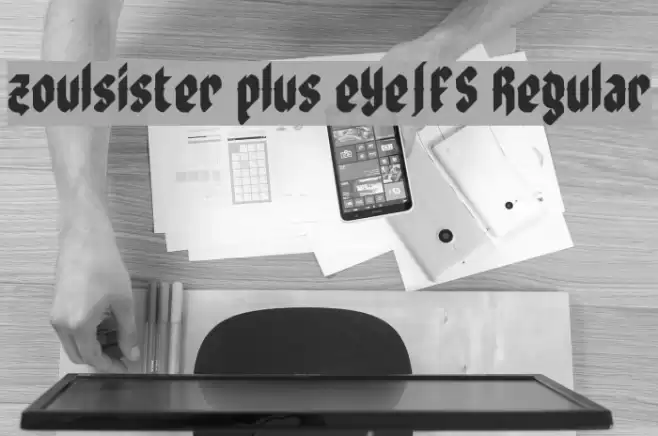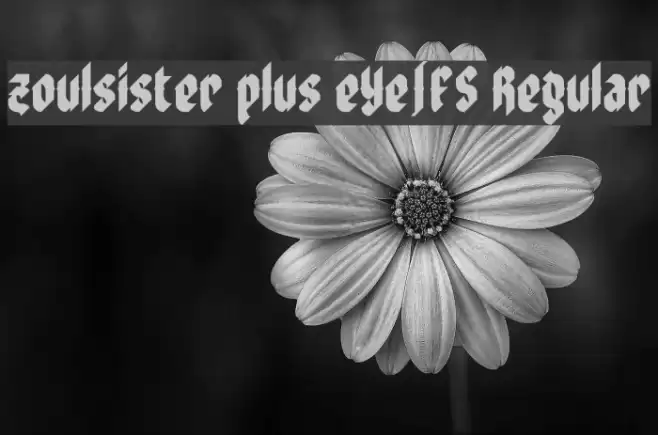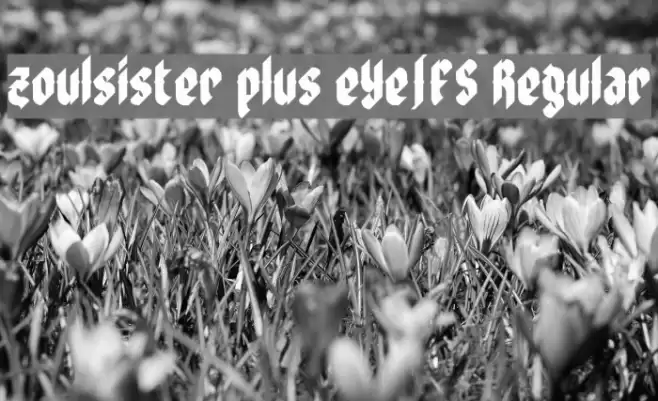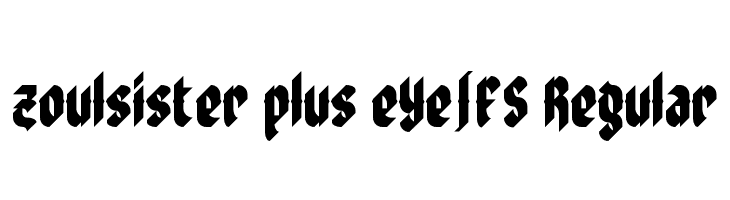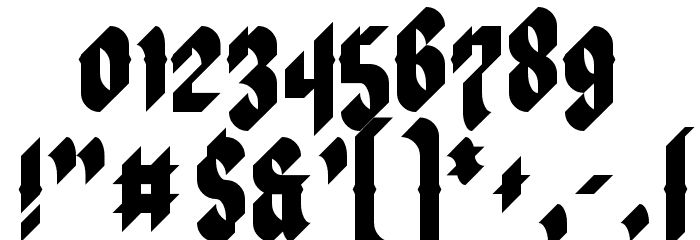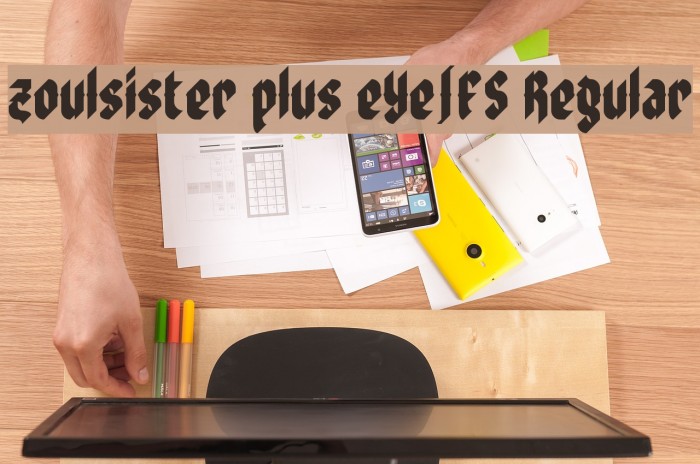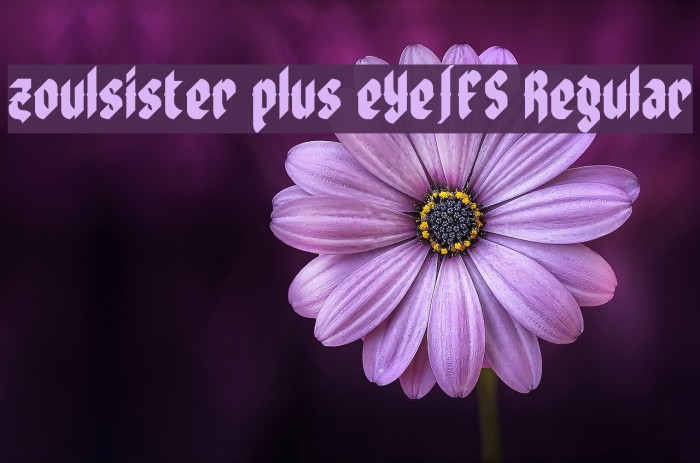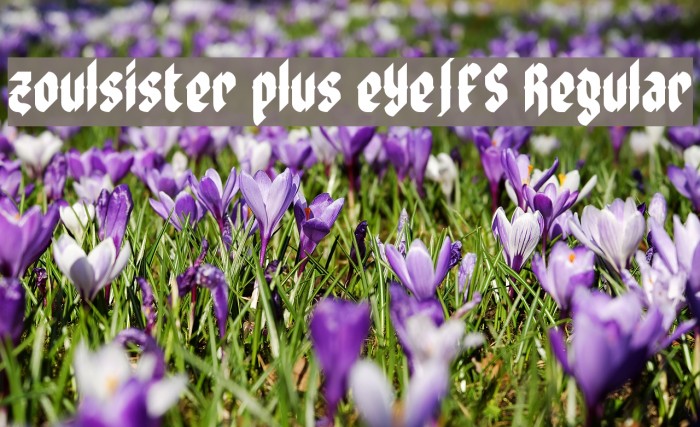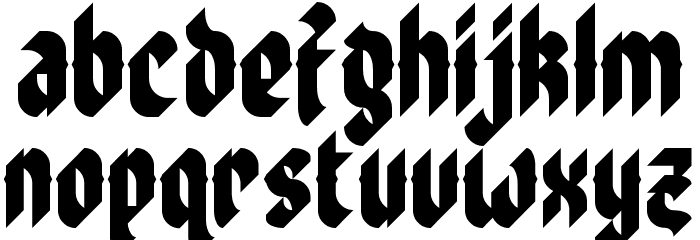
zoulsister plus eYe/FS Regular Font
zoulsister plus eYe/FS Regular Description
This font features a bold and striking blackletter style, characterized by its sharp, angular lines and dramatic presence. The uppercase and lowercase letters maintain a consistent weight, creating a cohesive and powerful visual impact. The numerals and special characters are designed to match the overall aesthetic, with intricate details that enhance the font's gothic appeal. The font's design is reminiscent of traditional calligraphy, yet it offers a modern twist with its clean edges and uniformity. The spacing between characters is tight, adding to the font's compact and dense appearance, making it ideal for creating a strong visual statement.
A bold blackletter font with sharp, angular lines and a gothic aesthetic.
- Proposed Projects: Ideal for branding, posters, album covers, and any project requiring a dramatic and gothic touch.
- Category: Blackletter
- Character Spacing: Tight
- Overall Style: Gothic, Decorative